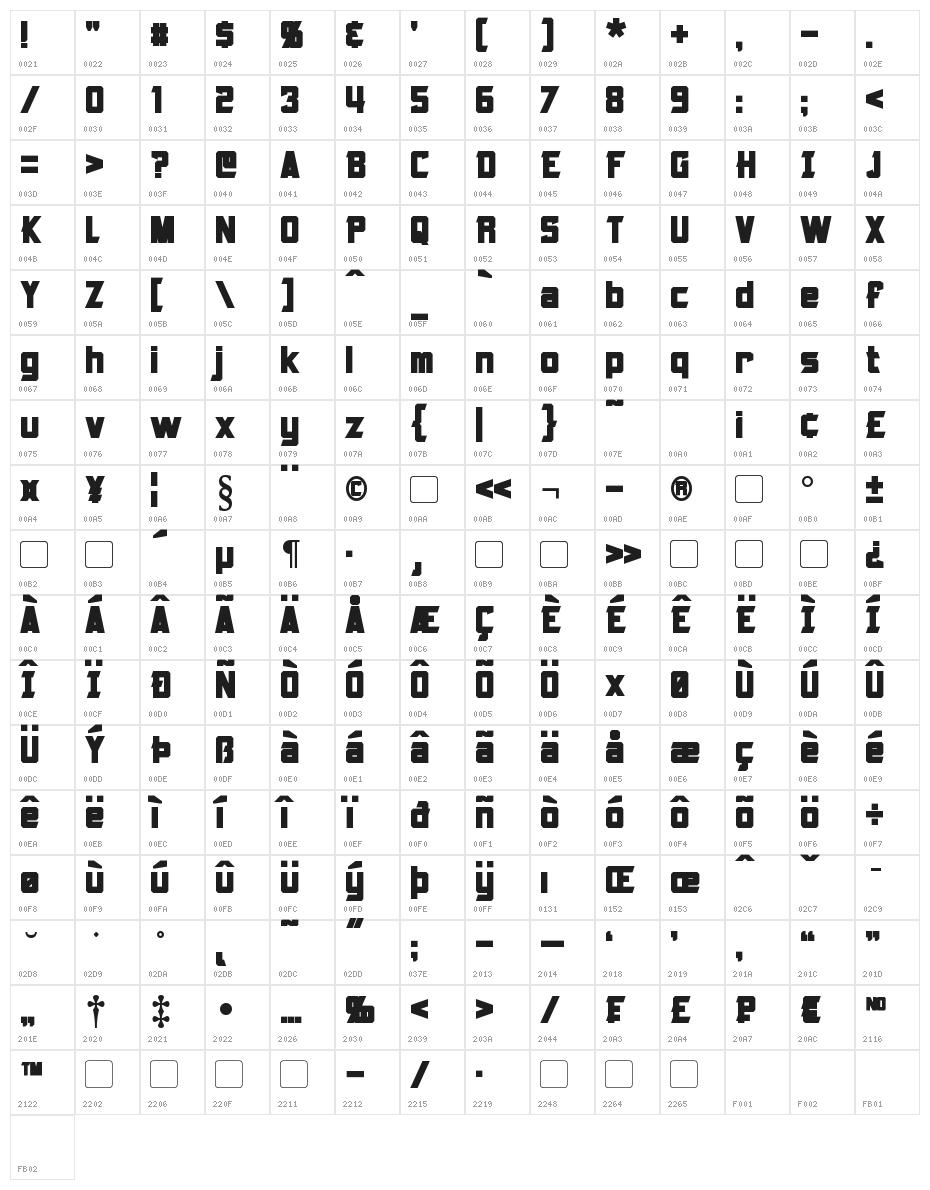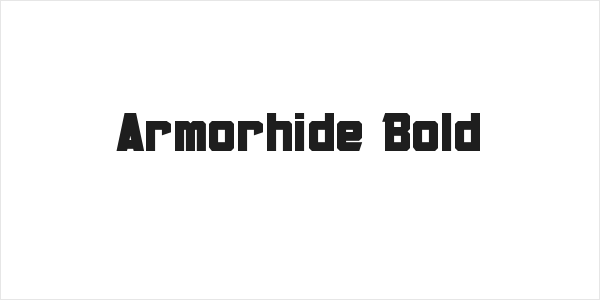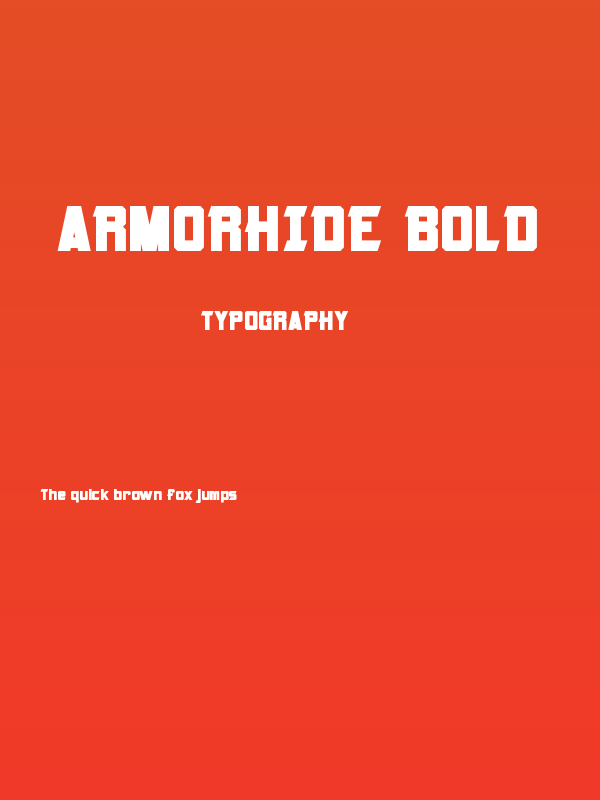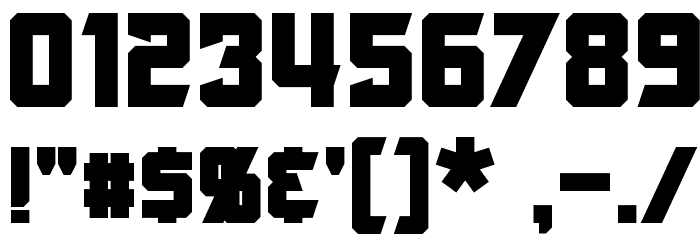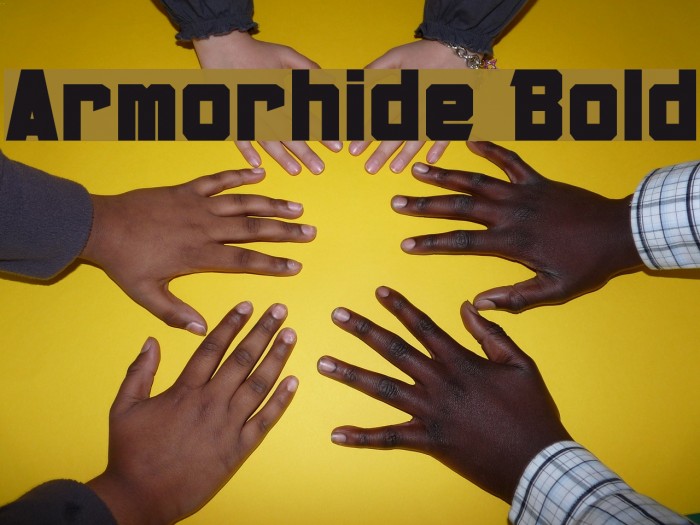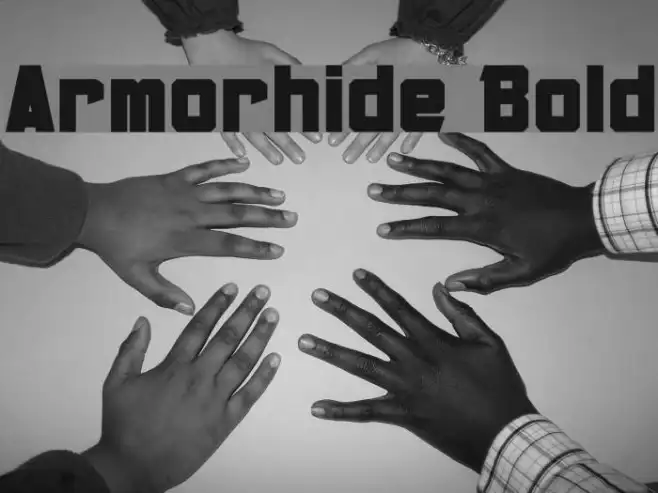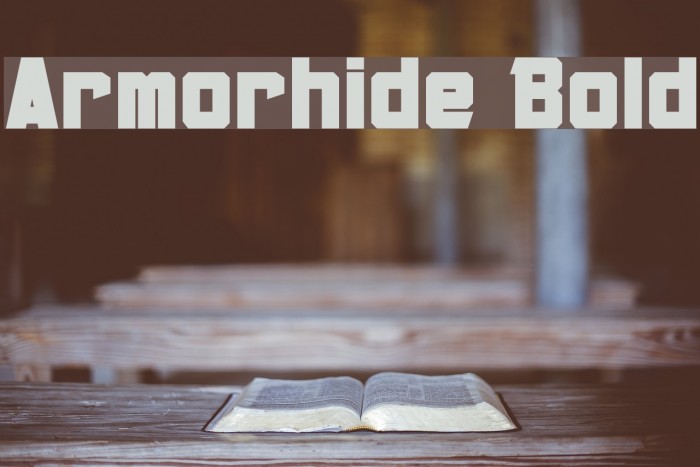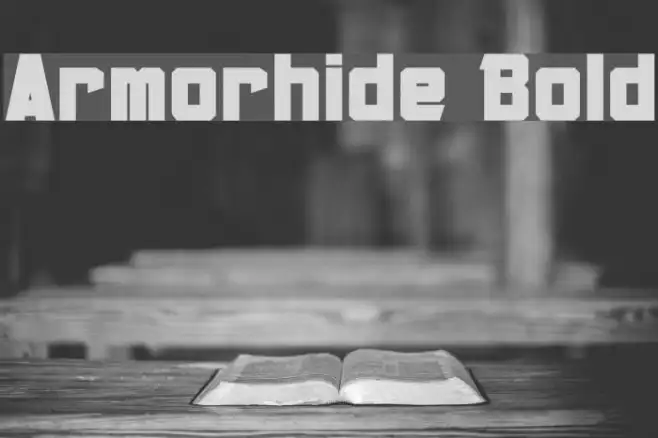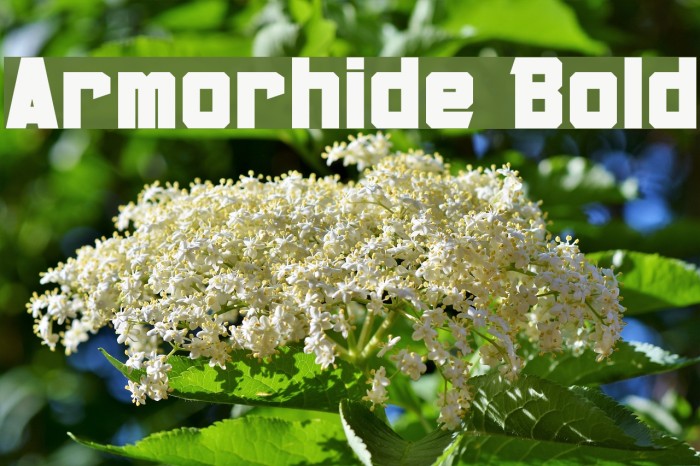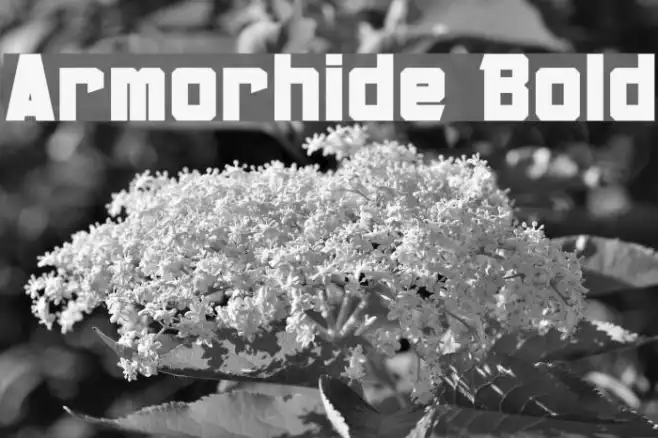
Armorhide Bold Font
Armorhide Bold Description
This font features a bold and robust design with a strong geometric structure. The characters are blocky and angular, giving a sense of strength and durability. The uppercase letters are particularly striking, with sharp edges and a solid presence. The lowercase letters maintain the same boldness, ensuring consistency across the typeface. Numbers and special characters are equally bold, making them stand out prominently. This font is ideal for projects that require a strong visual impact, such as posters, headlines, or branding materials.
| Proposed Projects | Ideal for posters, headlines, branding, and any project needing a strong visual impact. |